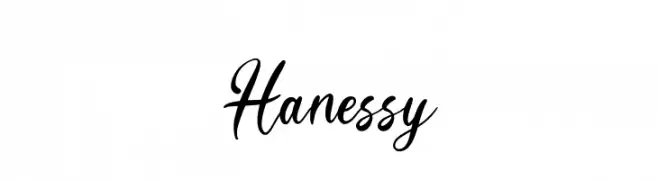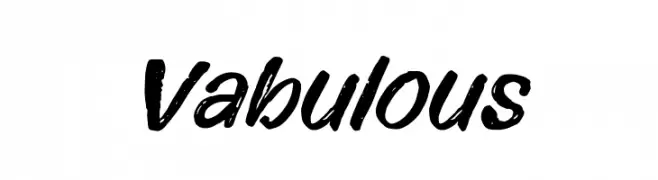
A flowing, cursive script with elegant, sweeping strokes and artistic flair.
A spooky, decorative font with a Halloween theme, featuring circular saw borders and crow accents.
A charming script font with elegant, flowing characters and medium contrast.
A playful, cursive script font with whimsical loops and embellishments.
A romantic and whimsical script font with elegant curves and playful accents.
An elegant script font with intricate swashes and flowing letterforms.
A bold, brush-style font with dynamic, handcrafted strokes.
An elegant, flowing script font with a refined, calligraphic style.
A cursive, handwritten font with elegant loops and a sophisticated style.
A playful, bold script font with a fluid, handwritten style.